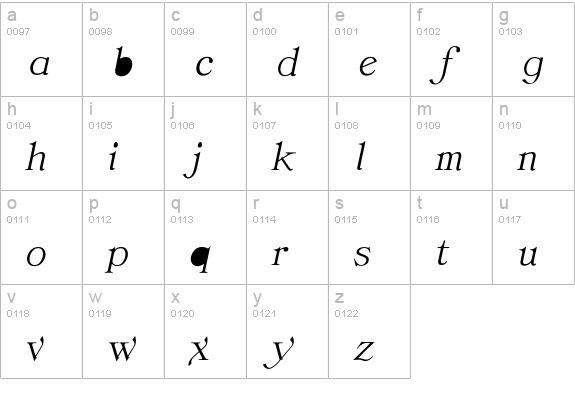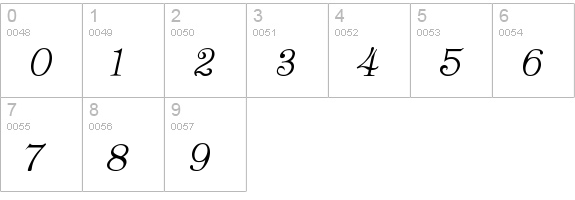
RSClassicaItalic Font Details
RSClassicaItalic font is a timeless and elegant typeface that exudes sophistication and charm. Its classic italic design adds a touch of refinement to any project, making it perfect for formal invitations, luxurious branding, and elegant designs. The flowing curves and graceful strokes of RSClassicaItalic make it a versatile choice for both print and digital applications. The best part? This exquisite font is available for free download at FontsMarket.com. Don't miss out on the opportunity to enhance your projects with the beauty and grace of RSClassicaItalic. Download it today and add a touch of class to your designs.